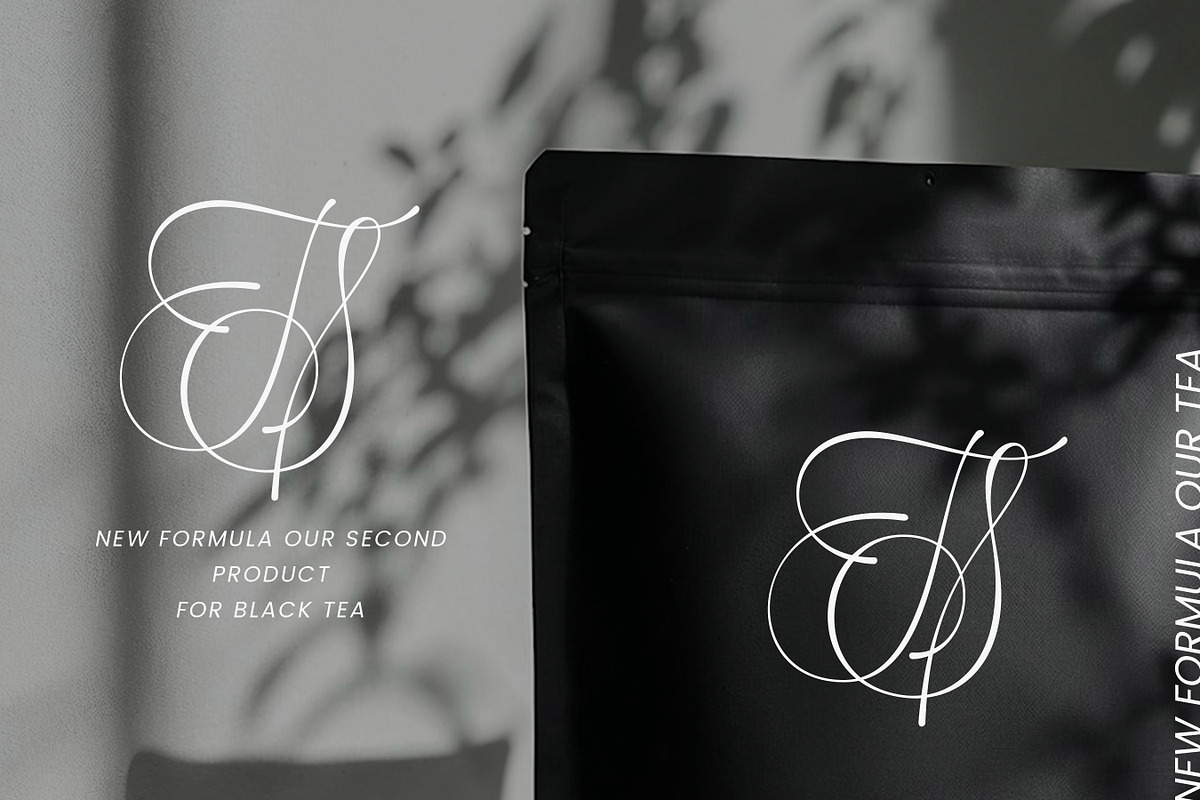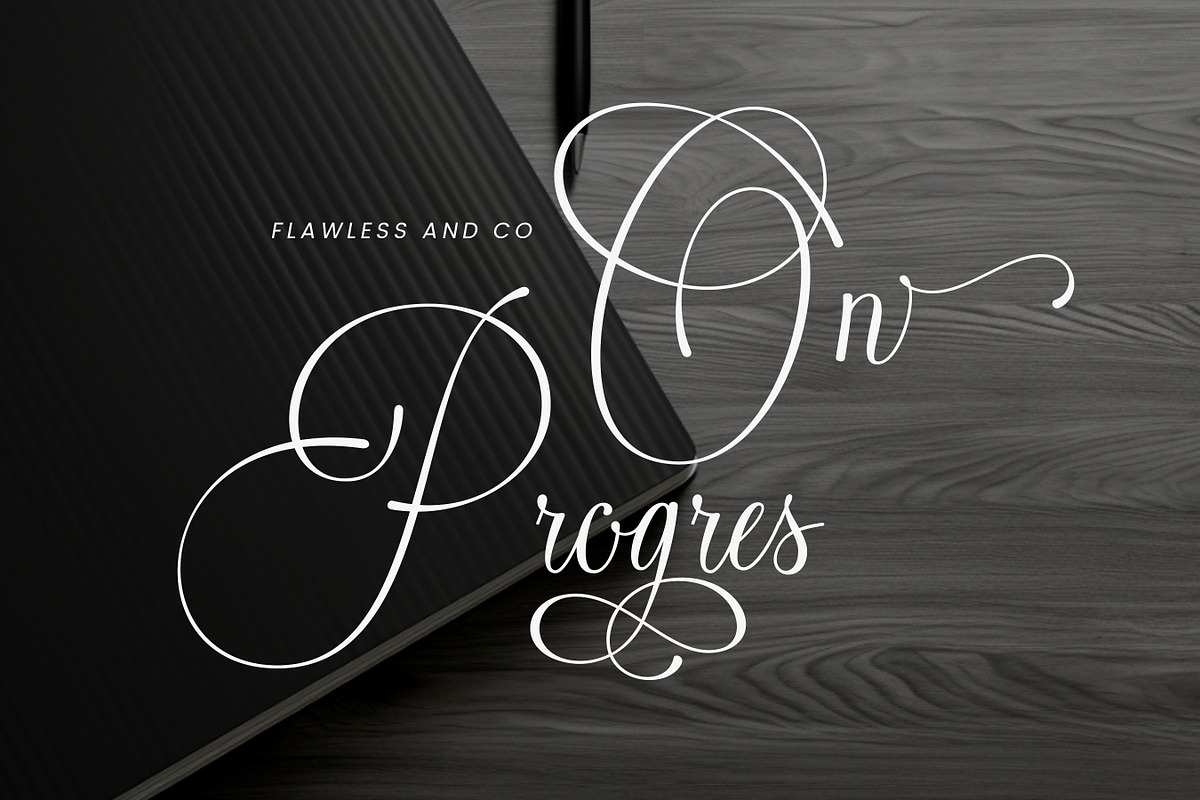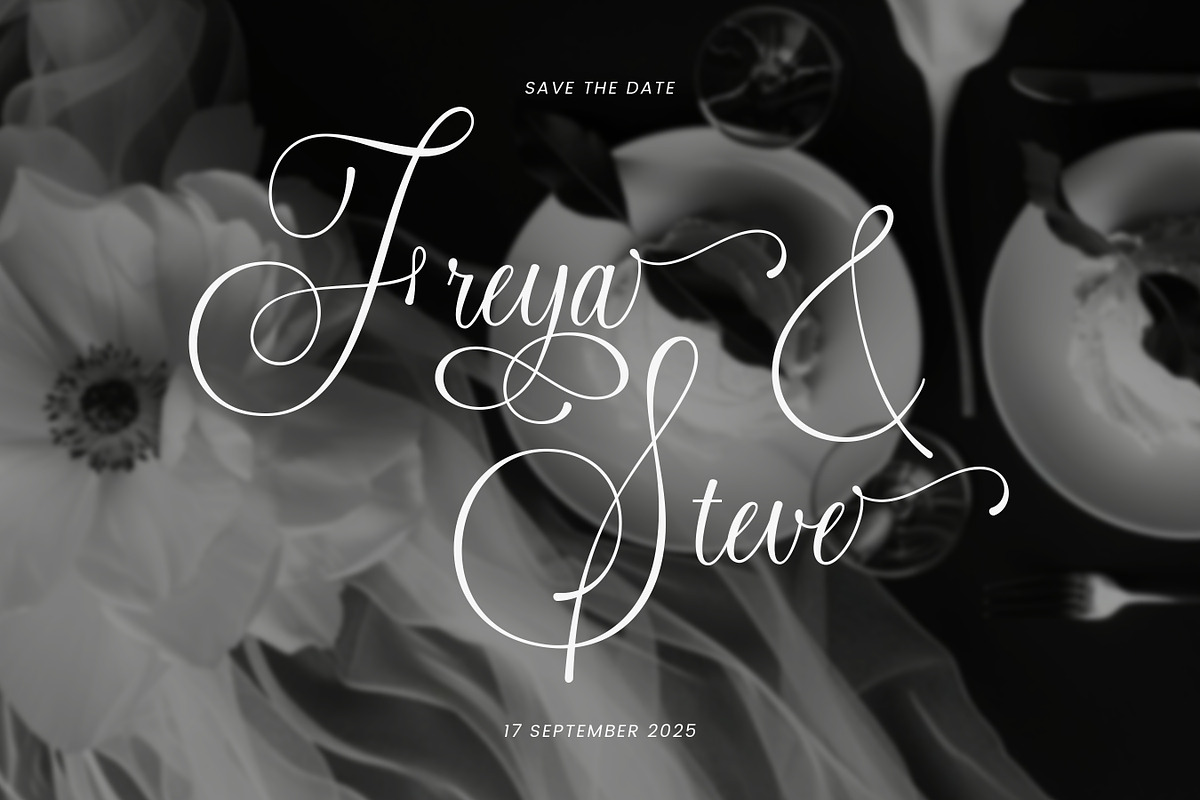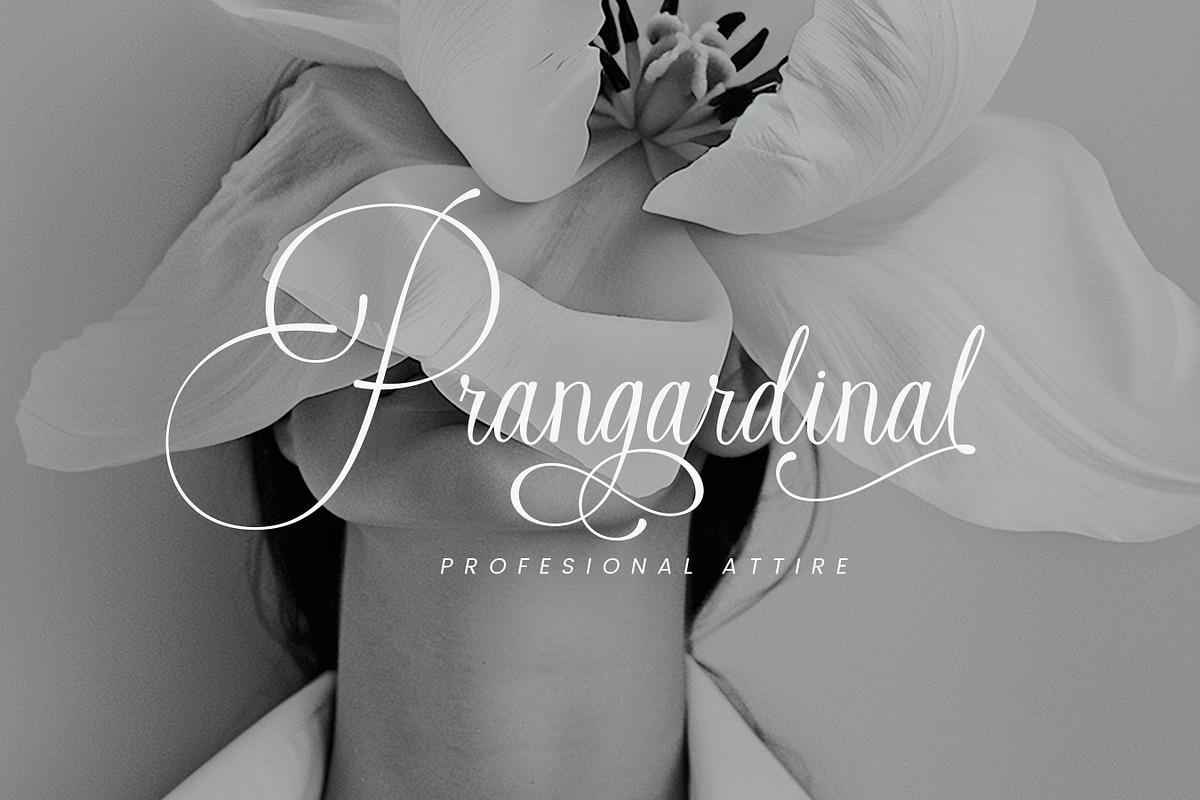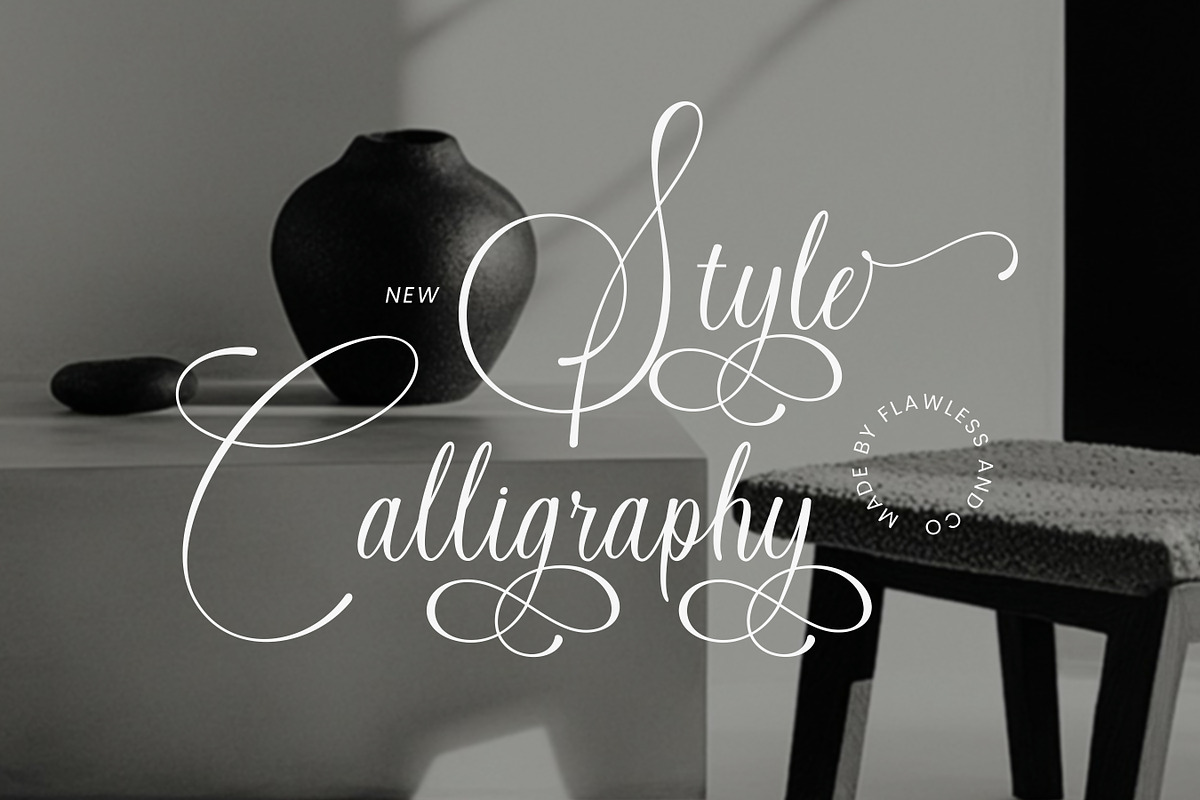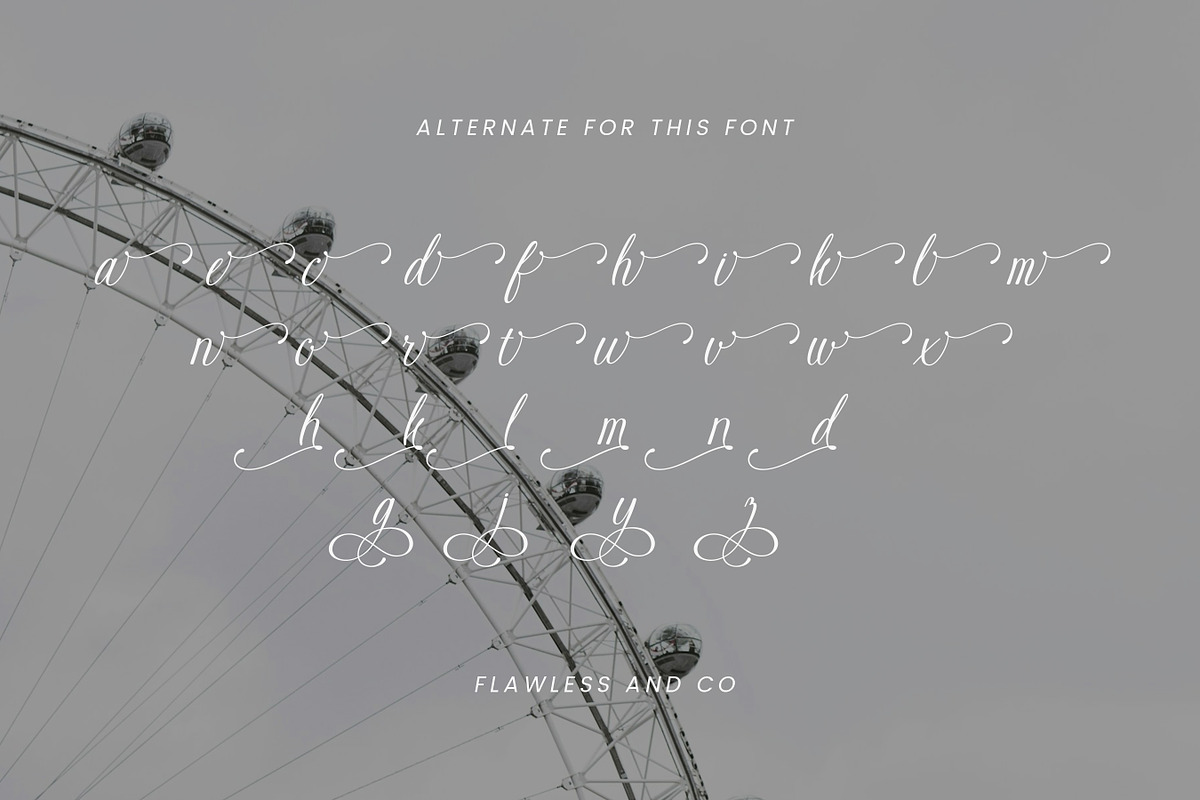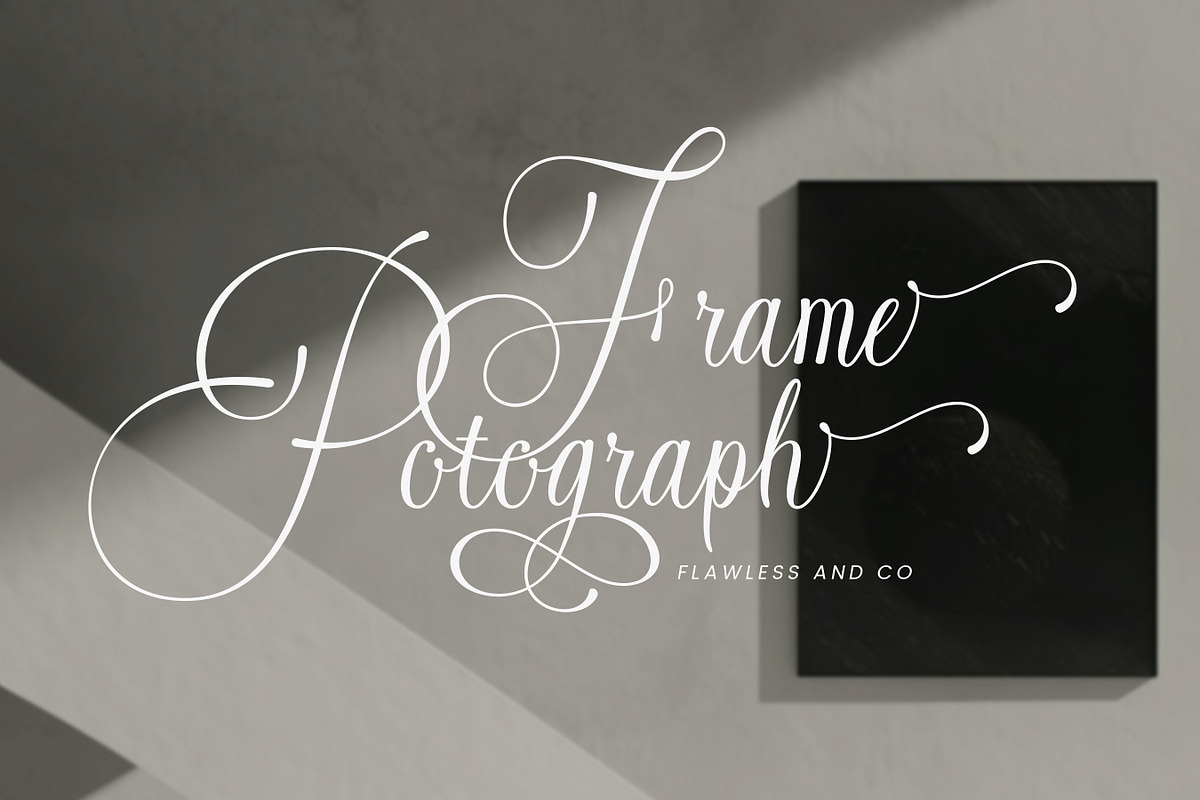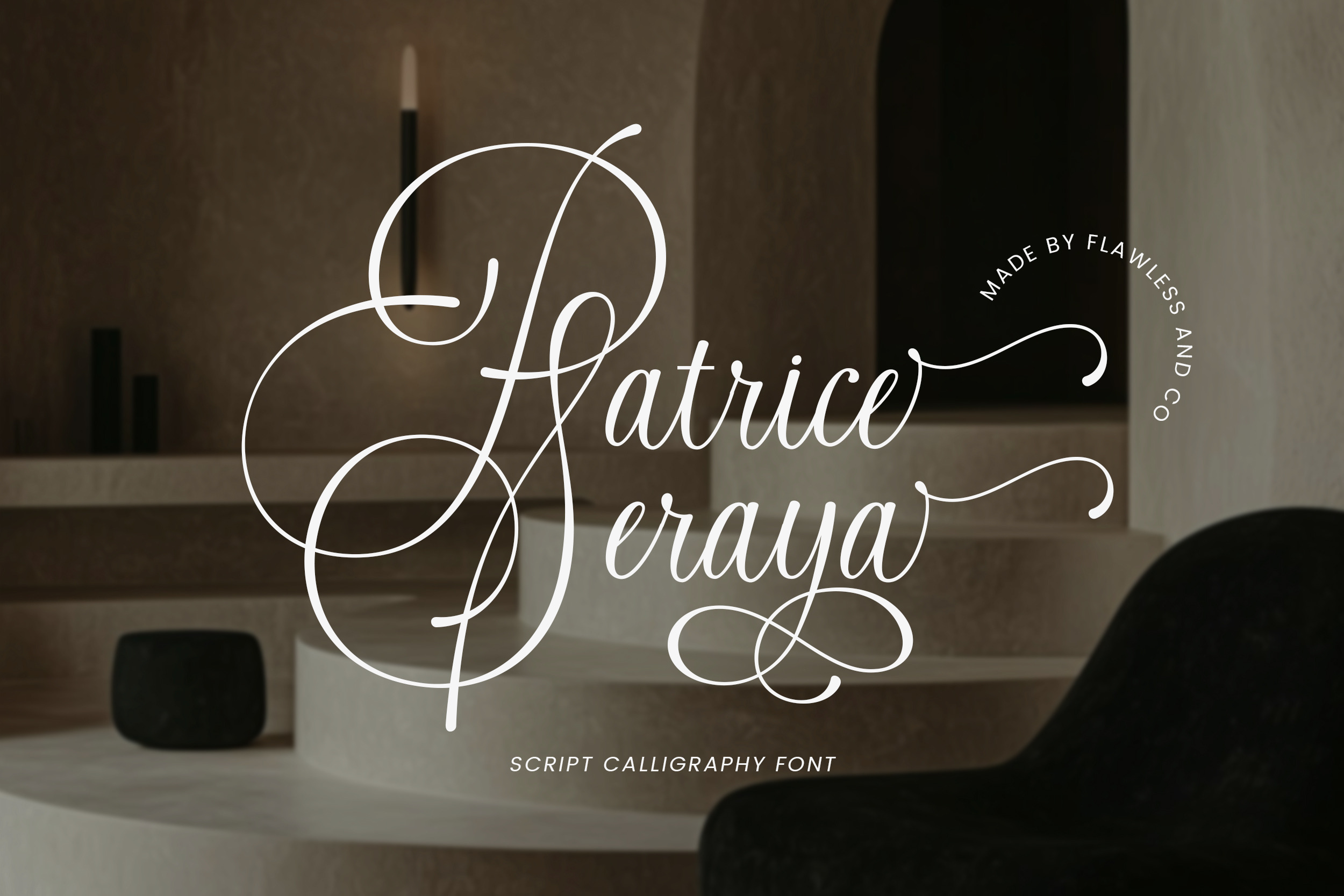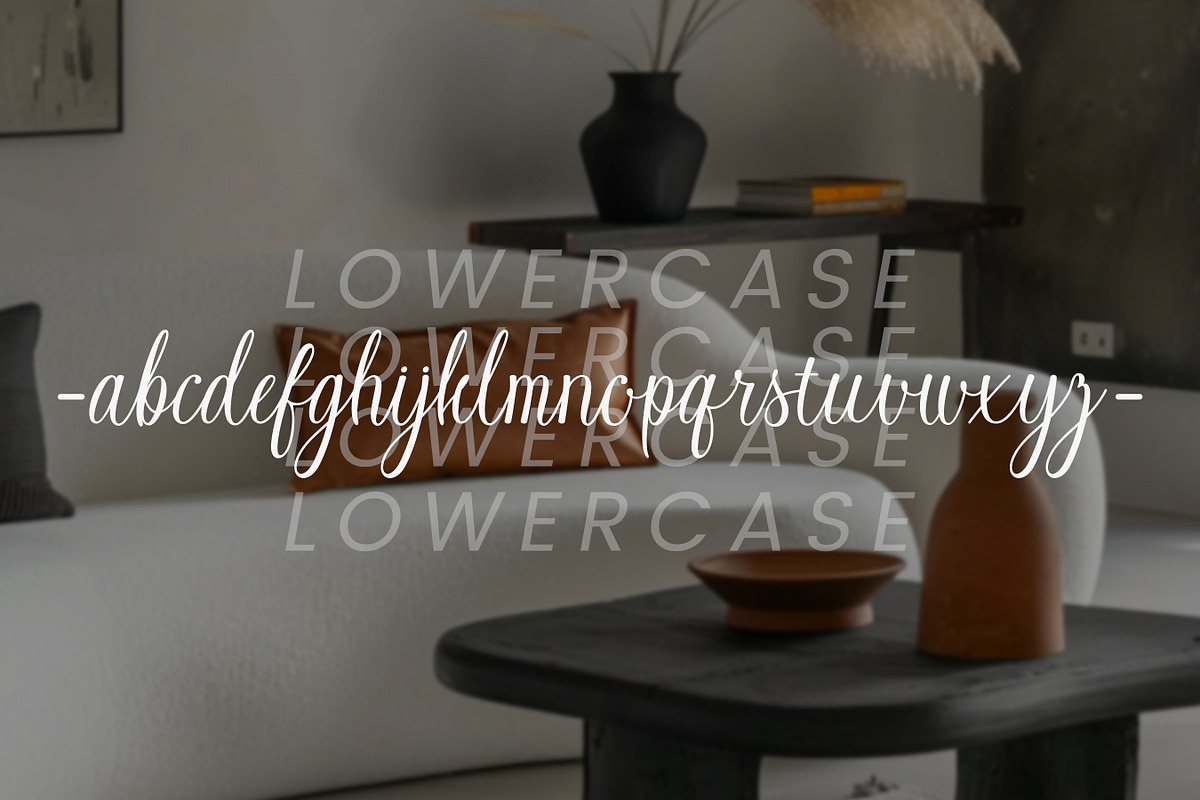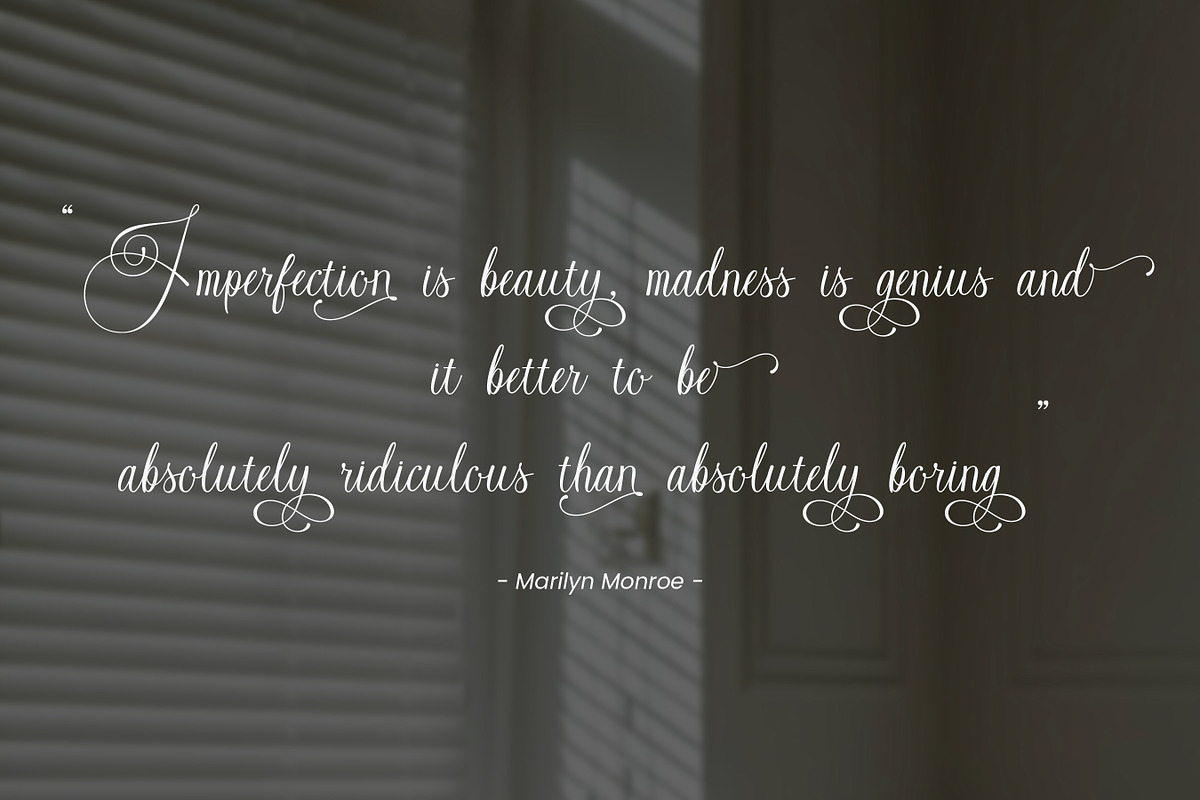
Patrice Seraya - Calligraphy Font
Introducing "Patrice Seraya," a beautifully crafted script calligraphy font that exudes elegance and sophistication. With its flowing curves and graceful letterforms, this font is perfect for adding a luxurious and refined touch to your designs. This font suitable for wedding invitations, logos, branding materials, event stationery, social media, greeting cards, etc.
Multilingual Uppercase alphabet A-Z Lowercase alphabet a-z Alternate Character Numbers 0-9 Some punctuation